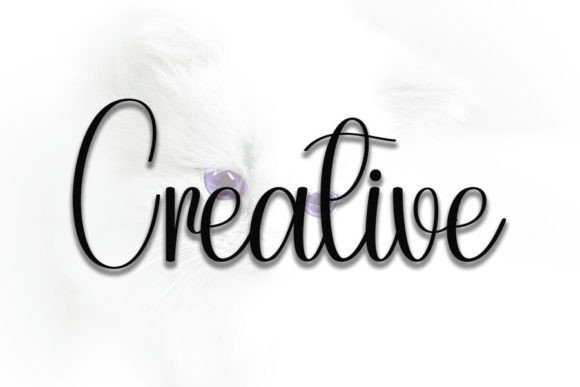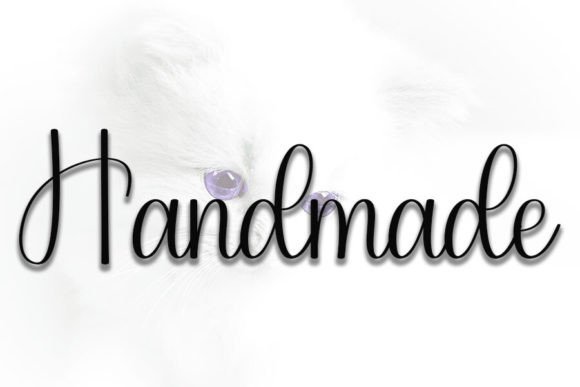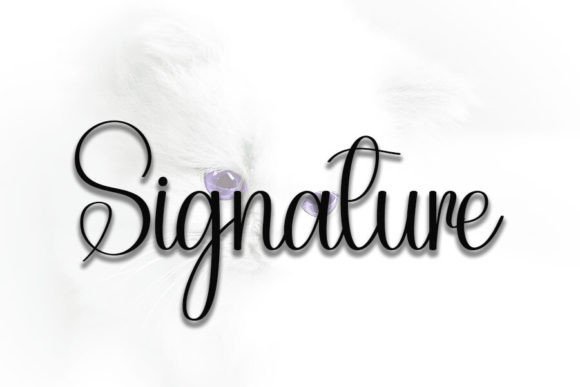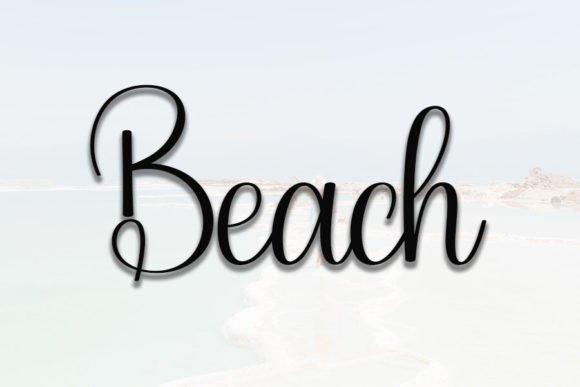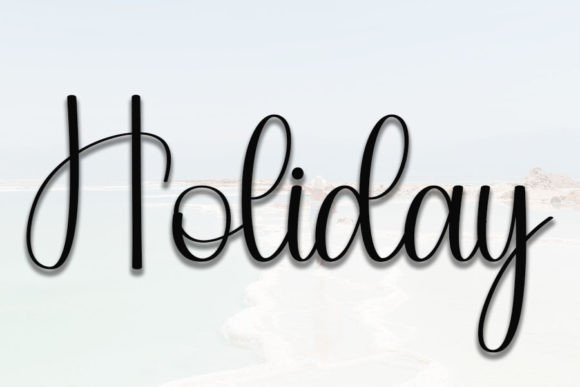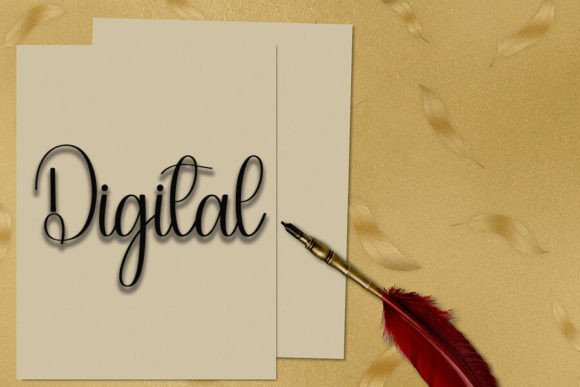
Discover the Perfect Font for Your Next Creative Project
There’s nothing quite like the thrill of brainstorming a new design idea, the spark of inspiration that sets your imagination ablaze. You envision the perfect layout, the perfect typography, and the perfect font to bring it all together. For many designers, that perfect font is the Beloved Font, a beautiful handwritten font that adds an elegant touch to any project.
With its unique, timeless style, the Beloved Font is a valuable addition to any designer’s toolkit. Whether you’re working on a wedding invitation, a blog post, or a marketing campaign, this font is sure to make your designs stand out. Its distinct character and versatility make it perfect for a wide range of projects, from elegant and sophisticated to playful and fun.
Key Features of Beloved Font
- Font Family: Beloved is a script font family that features elegant, handwritten characters.
- Unique Characteristics: Beloved features a unique, hand-drawn design with subtle flourishes and imperfections, giving it a personal and emotional feel.
Beloved Font Review
Overall, I’m impressed with the Beloved Font, a beautiful and elegant script font that’s perfect for creative projects. Here are some of its standout features:
- ✨ Delicate and intricate details – The font has a lovely, hand-written feel to it, making it ideal for invitations, quotes, and other decorative text.
- ✨ Highly customizable – The font comes with a wide range of styles and weights, allowing you to tailor it to your specific design needs.
- ✨ Excellent legibility – Despite its ornate design, the font is surprisingly easy to read, even at small font sizes.
- ⚠️ Limited font sizes – While the font is available in a range of weights and styles, the font sizes are somewhat limited, which may not be suitable for large-scale text projects.
- ⚠️ Not ideal for body text – Due to its delicate nature, the font may not be the best choice for body text, where readability is paramount.
Overall, I think the Beloved Font is a great addition to any designer’s toolkit. While it may not be suitable for every project, it’s perfect for creative and decorative text applications where a touch of elegance is needed.
Getting the Most Out of Beloved Font
For optimal results, use Beloved Font in conjunction with a clean and simple design. This will allow the font’s elegant and sophisticated features to shine. Experiment with different font sizes and colors to create visual interest and depth.
Beloved Font is ideal for use in wedding invitations, formal event materials, and luxury branding. Its elegant and sophisticated features make it perfect for creating a high-end and polished look.